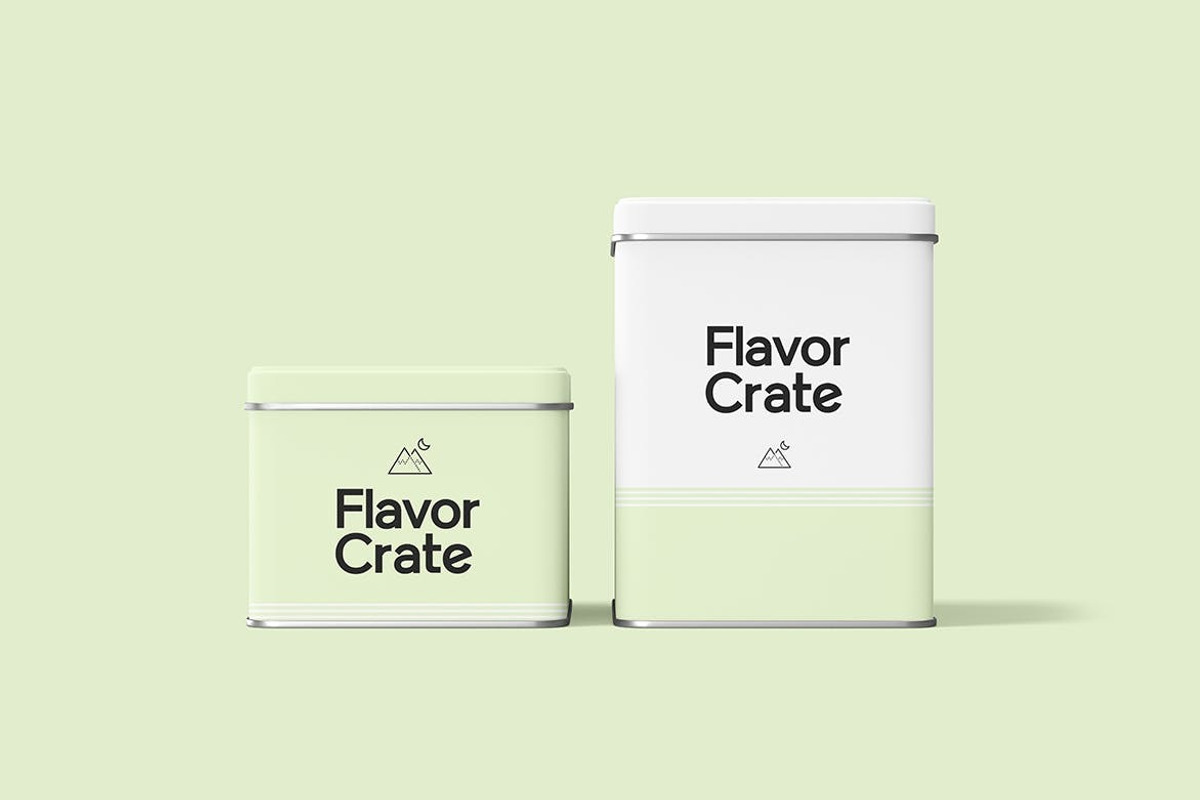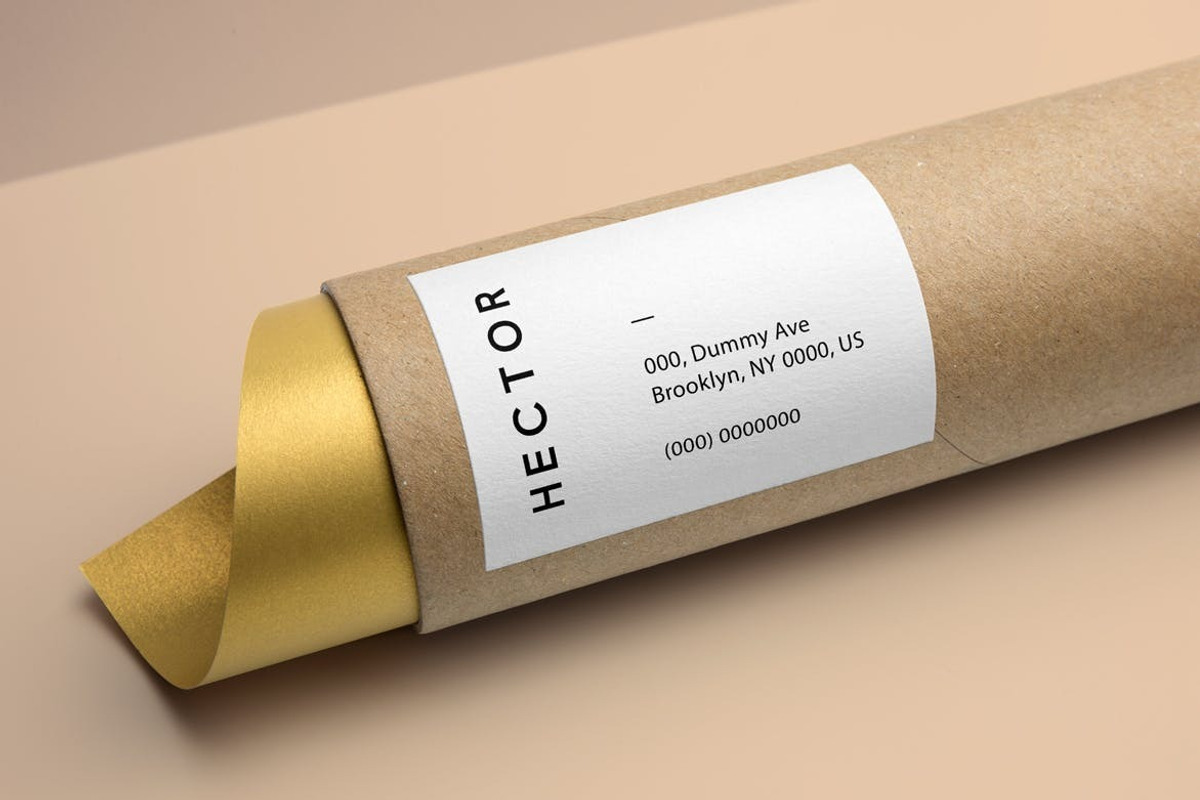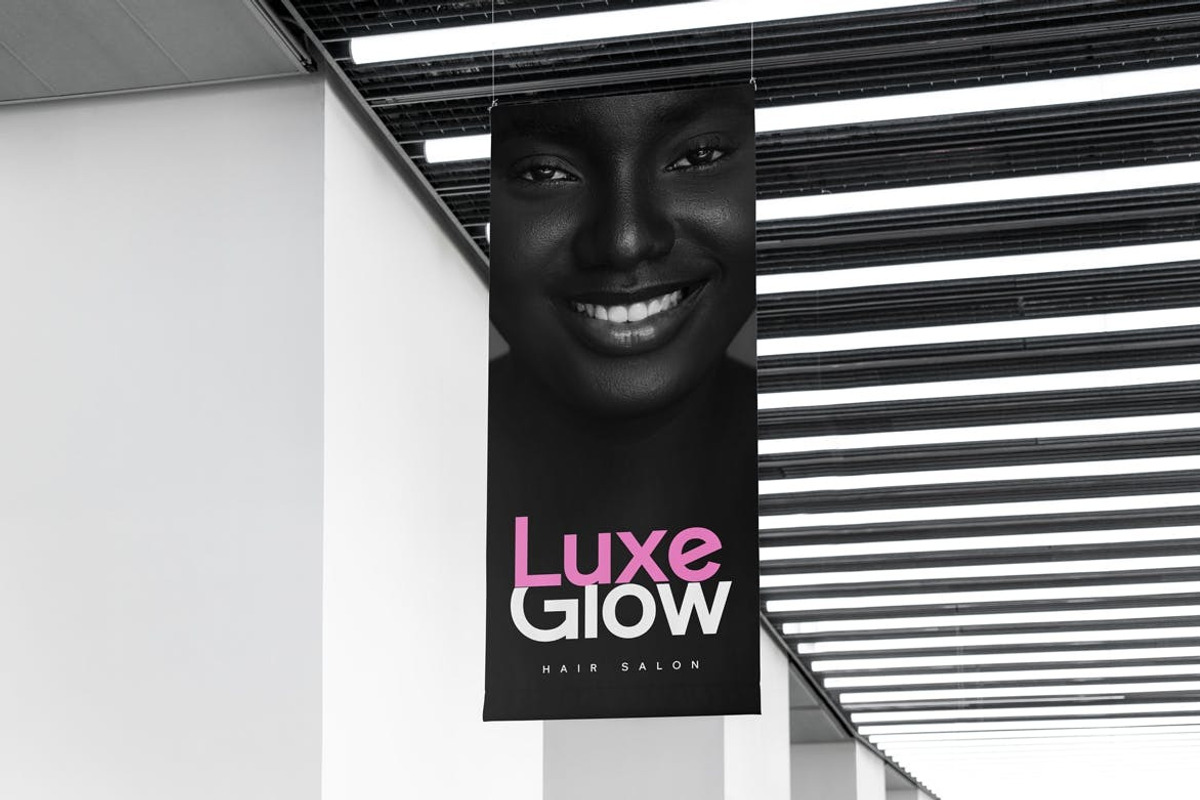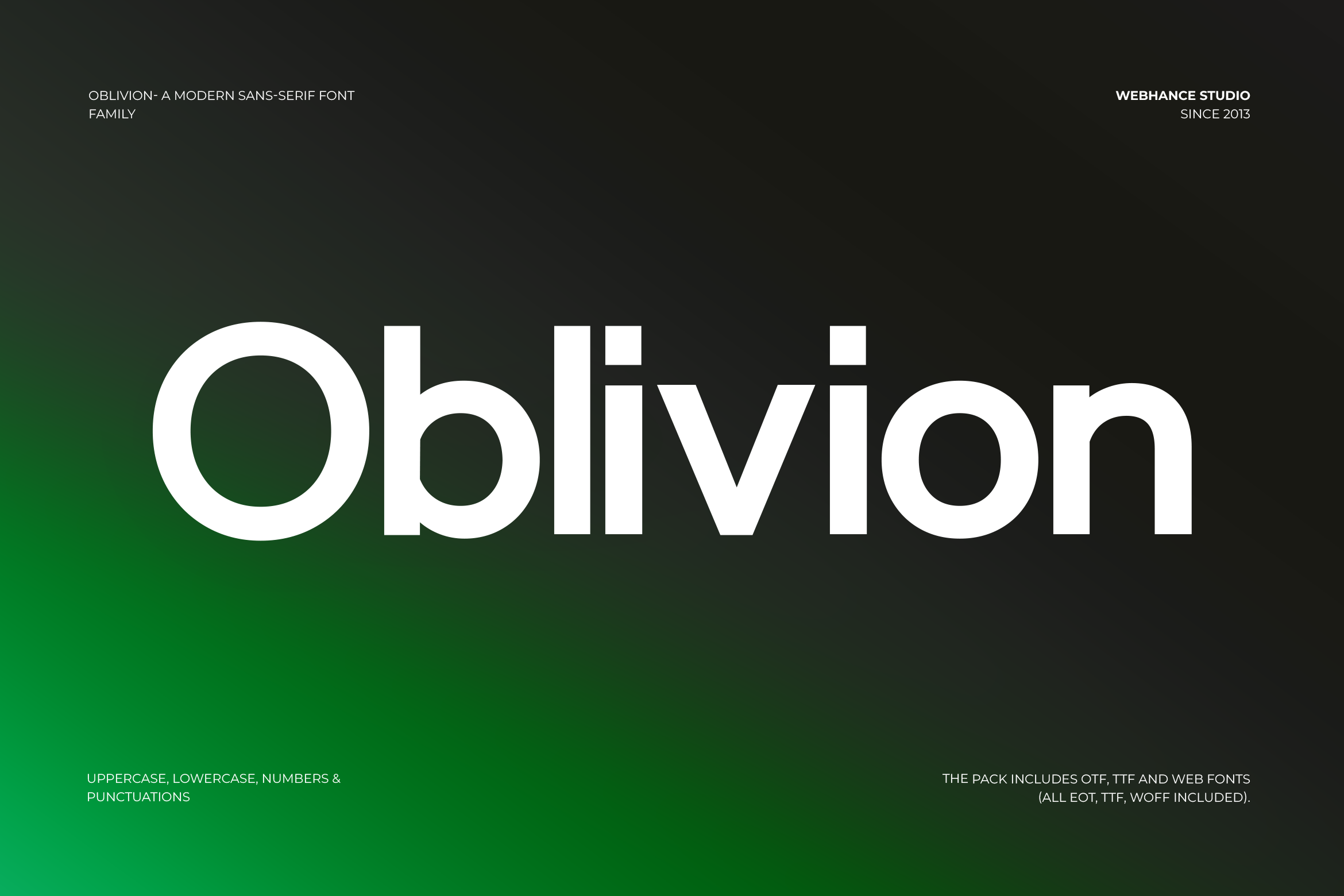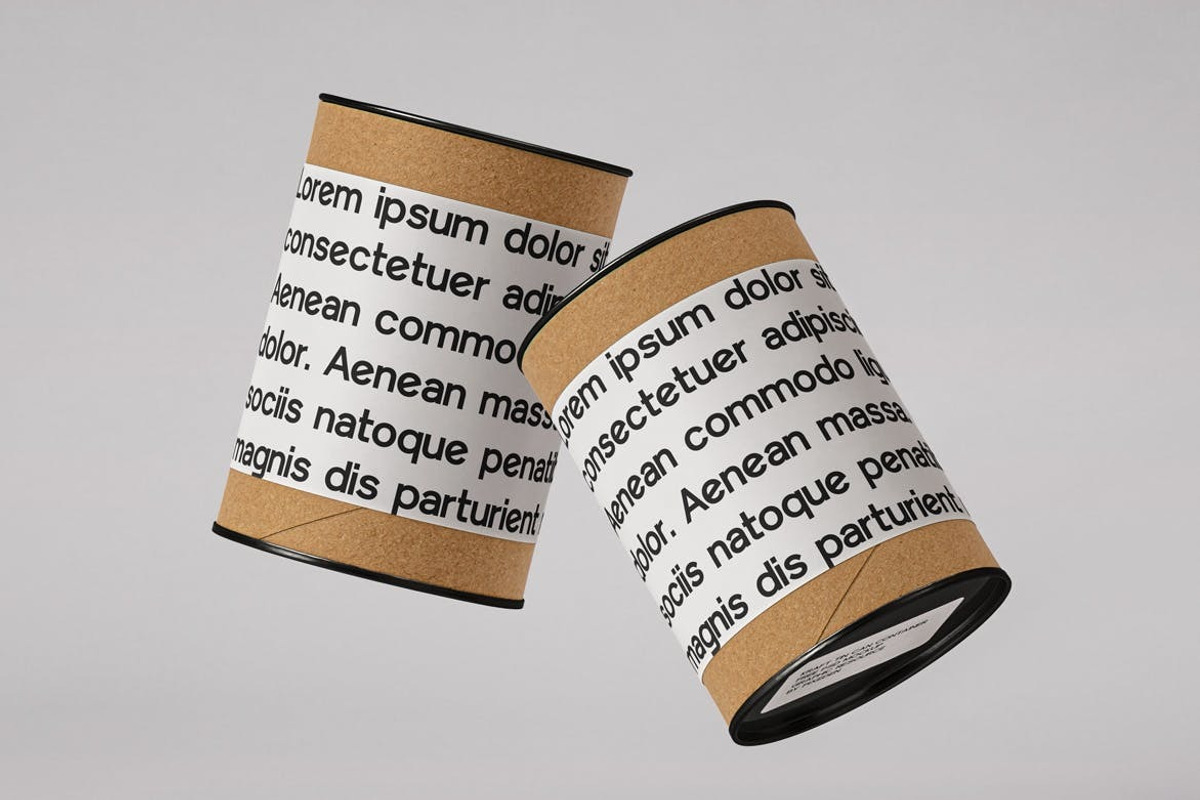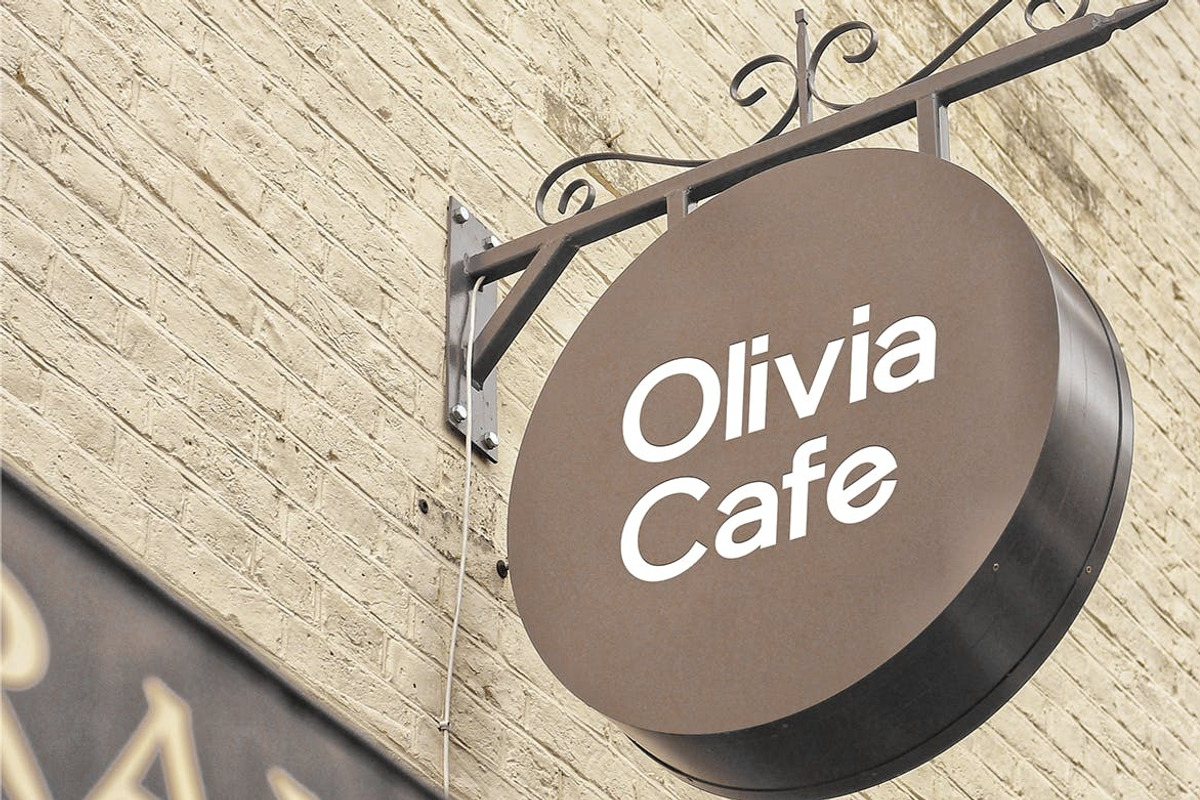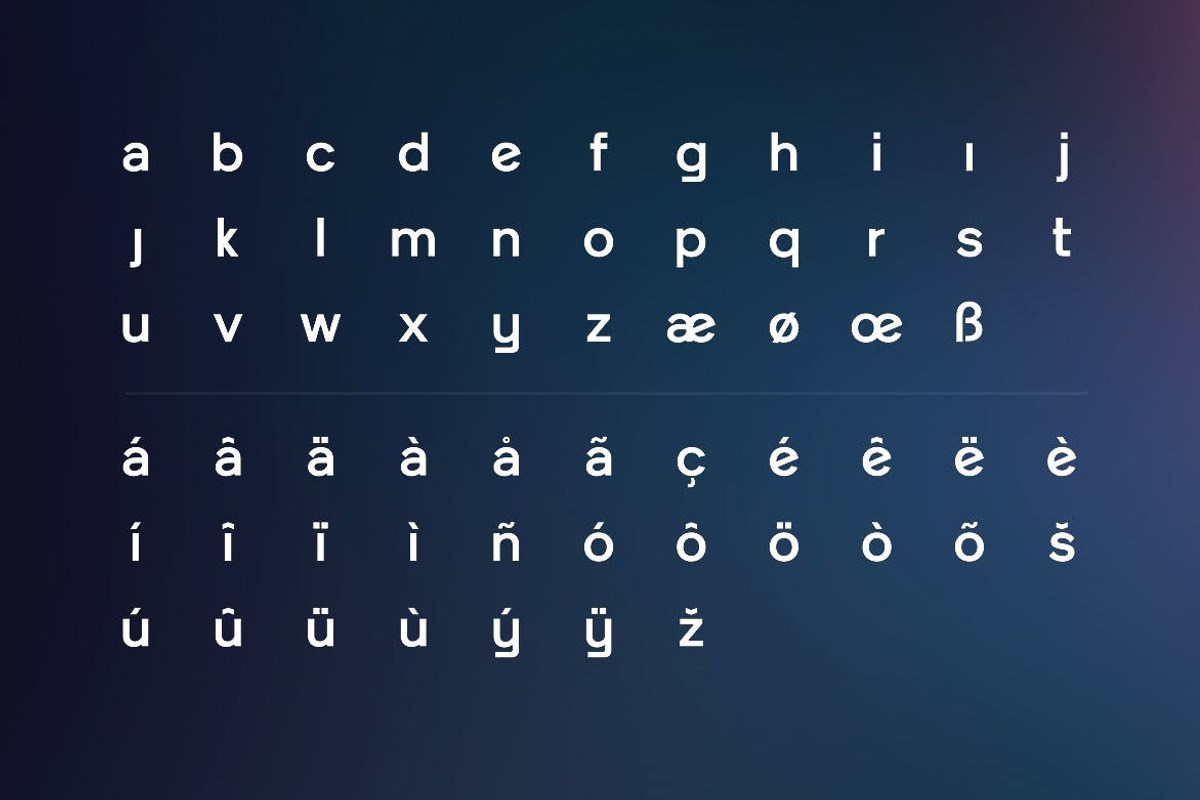
Oblivion - Modern Sans-Serif Webfont
Introducing "Oblivion"! This versatile font features extended multilingual glyphs, making it perfect for a wide range of design projects. Whether you're creating minimalistic designs, captivating Instagram posts, eye-catching YouTube thumbnails, or vibrant posters, Oblivion fits the bill. Its elegance and functionality blend seamlessly, offering endless possibilities for any modern design aesthetic. Explore the world of Oblivion and enhance your creative projects. Included Glyphs